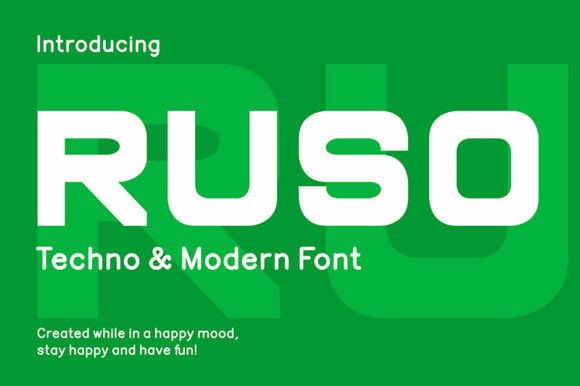
Welcome to the wondrous world of Ruso, the font that embodies the very essence of modern design. Its crisp, clean lines and contemporary aesthetics are a testament to the ever-evolving digital landscape. A brainchild of Imagi Factory, Ruso is not merely a collection of letters; it is an artistic expression that breathes life into your creative endeavors.
Ruso captivates with its simplicity, a testament to the adage that less is more. Unburdened by intricate embellishments, its characters exude clarity and elegance, ensuring effortless readability across various platforms. Whether it's a captivating website, a thought-provoking presentation, or an eye-catching social media post, Ruso effortlessly elevates your content, transforming it into a feast for the eyes.
Its versatility is a symphony of possibilities, seamlessly adapting to a diverse range of design styles. From sleek and minimalist to vibrant and playful, Ruso effortlessly harmonizes with your creative vision, allowing you to express yourself with unparalleled freedom. Unleash your imagination and let Ruso be your muse, guiding you toward design masterpieces that leave a lasting impression.
But Ruso's allure extends beyond its visual appeal. It is meticulously crafted to provide an exceptional user experience. With its PUA-encoded nature, accessing the entire repertoire of delightful glyphs and swashes is a breeze. No longer confined by technical limitations, your creativity can soar unhindered, transforming your designs into captivating works of art.
Embark on a typographic adventure with Ruso, the font designed to amplify your creative prowess. Its versatility, simplicity, and readability empower you to craft designs that resonate with your audience, leaving an indelible mark in the digital realm. Let Ruso be your guiding light, illuminating your path toward design excellence.